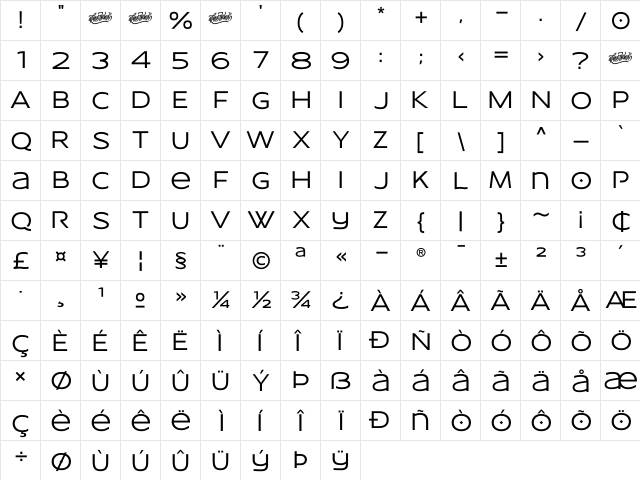
wonderella Regular
| Designer | Almarkhatype 2020 -Rivo Adriansyah - Abdul Malik Wisnu |
Design Context for wonderella Typeface
wonderella offers clean, dependable letterforms without strong stylistic allegiance, making it a practical choice for designers who need flexibility.